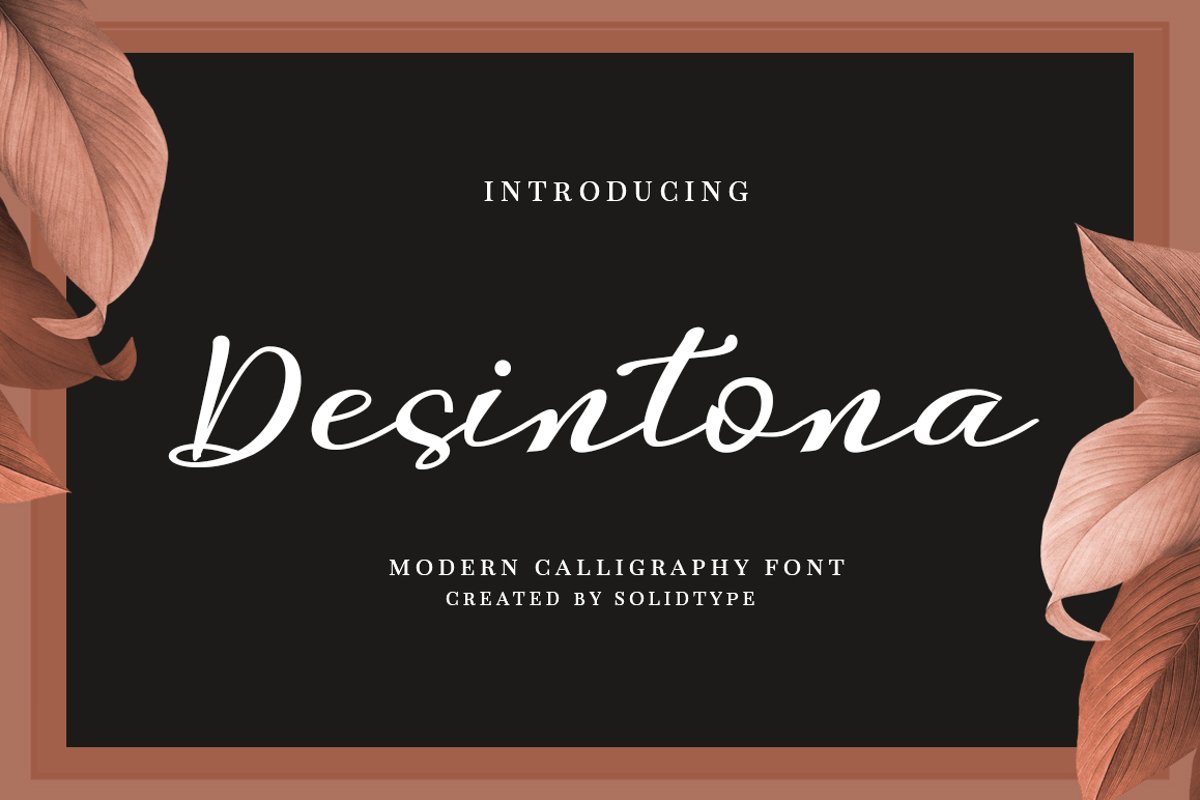
Desintona Script
Desintona
Say hello to Desintona Script - A contemporary calligraphy, with a vintage feel, style calligraphy with moving baseline and elegant touch. That makes the font look fabulous! Can be used for various purposes.such as headings, signature, logos, wedding invitation, t-shirt, letterhead, signage, lable, news, posters, badges etc.